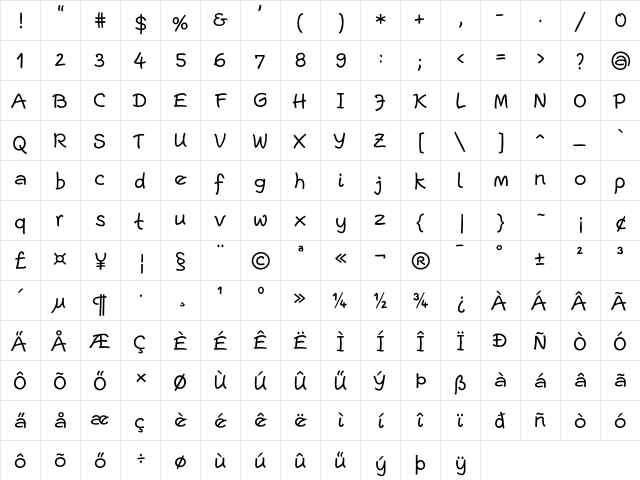
EscriptLL Regular Font Preview
EscriptLL Regular
Design Context for EscriptLL Typeface
EscriptLL flows with the natural rhythm of handwritten lettering, making it ideal for designs that call for warmth and personal expression.
Font Pairing: Combine EscriptLL with a simple geometric sans for maximum contrast — the tension between flowing curves and clean structure is a classic typographic pairing.
Pro Tip: Use EscriptLL for short runs of text — names, titles, or taglines. Extended body copy in script faces tires the eye quickly.